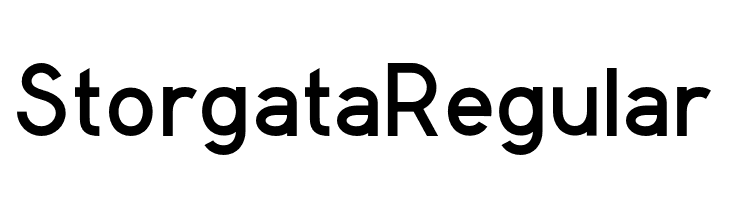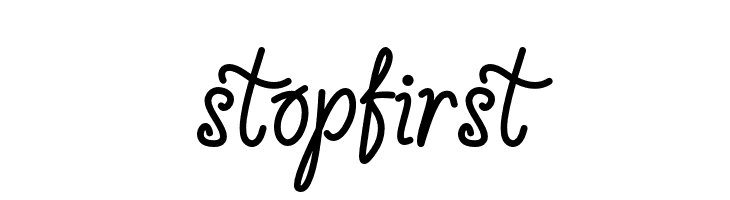
A playful and energetic script font with flowing, connected letterforms.
A bold, geometric font with a futuristic and angular design.
A playful, handwritten font with rounded edges and a whimsical style.
A bold, slanted, monospaced font with a modern and dynamic style.
A bold, playful handwritten font with rounded edges and a casual style.
A modern, geometric sans-serif font with clean lines and balanced proportions.
A modern, geometric sans-serif font with clean lines and a slightly condensed style.
A bold, modern sans-serif font with clean lines and strong readability.
A bold, italicized modern sans-serif font with a dynamic and clean appearance.